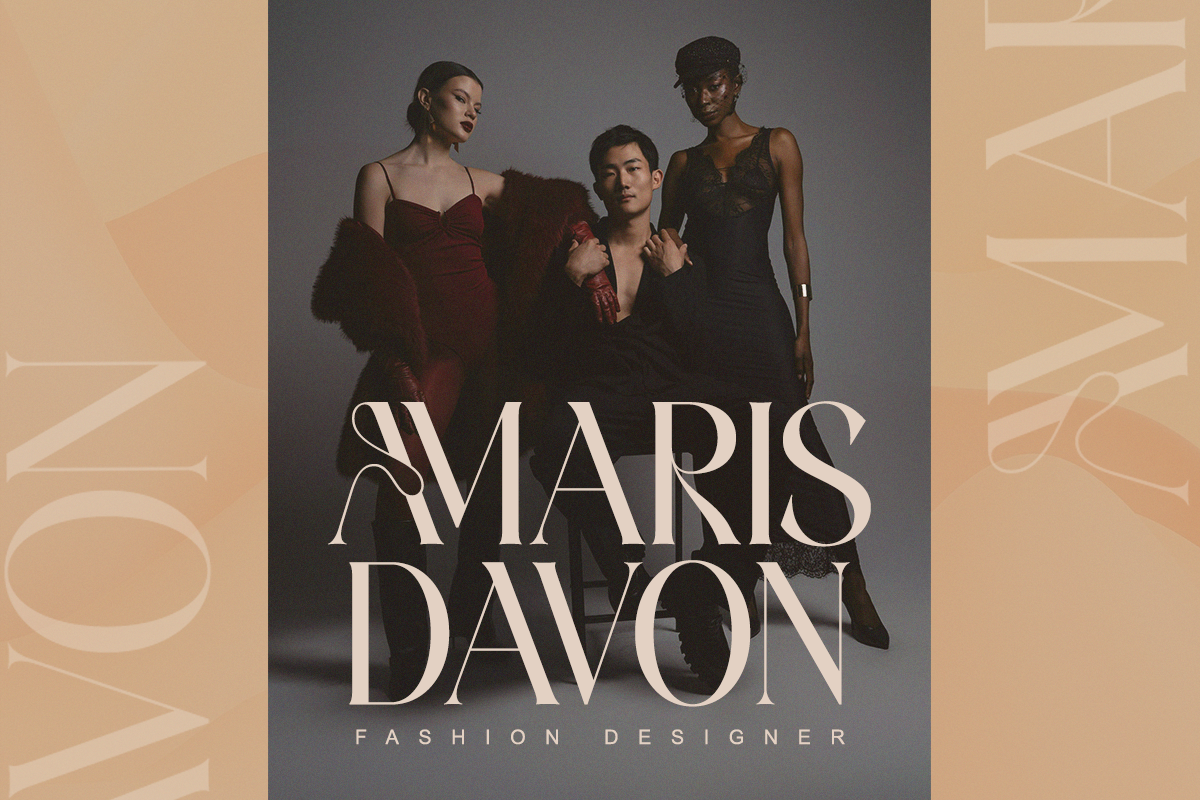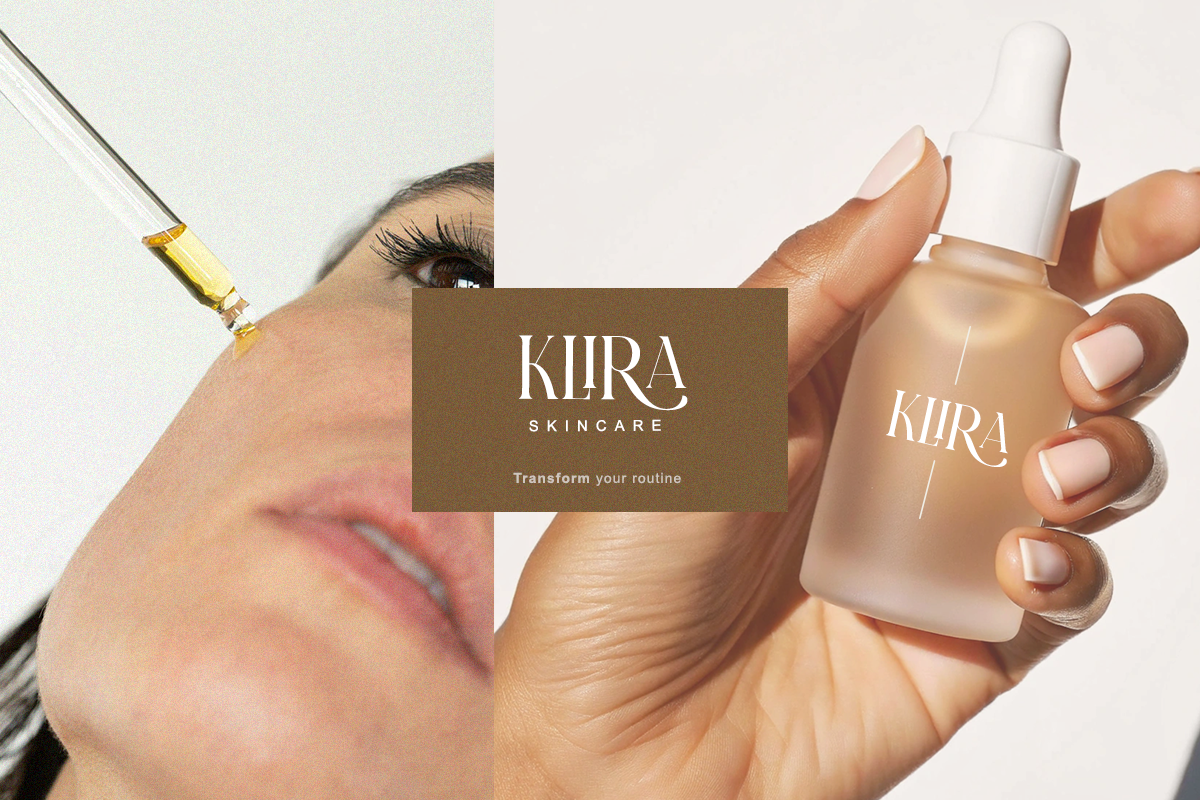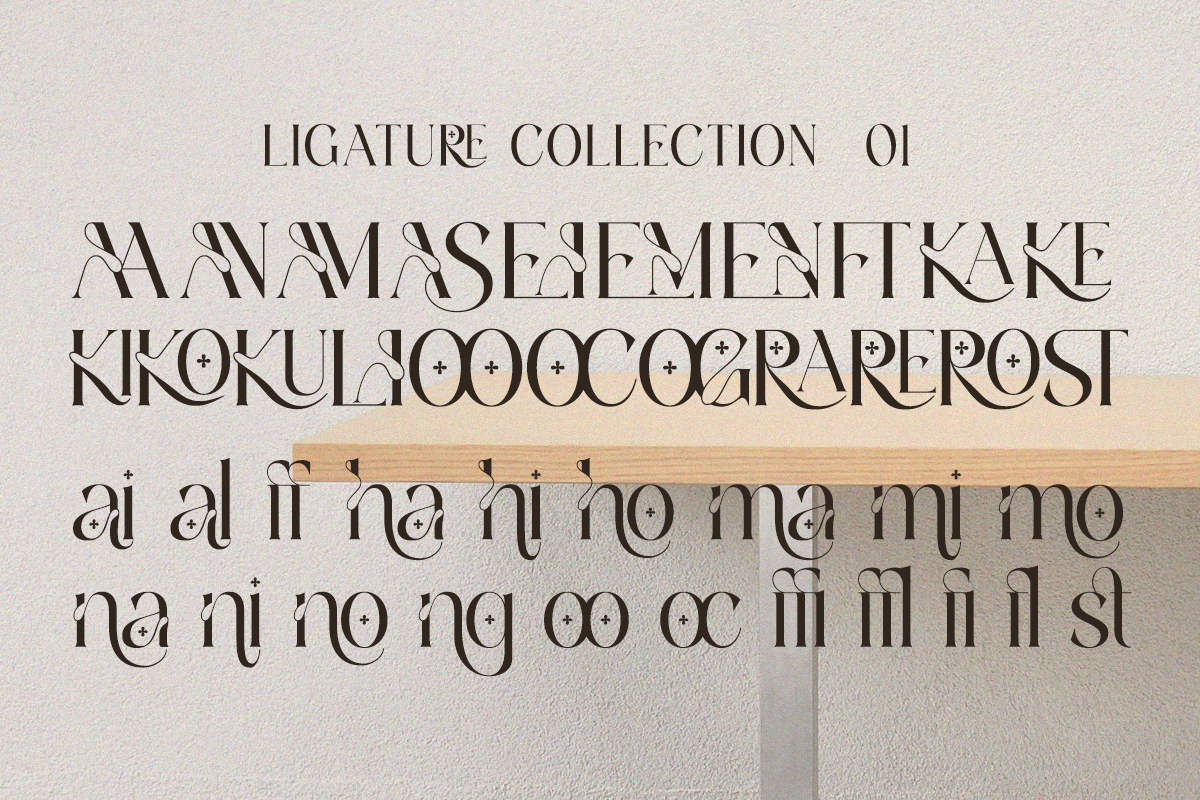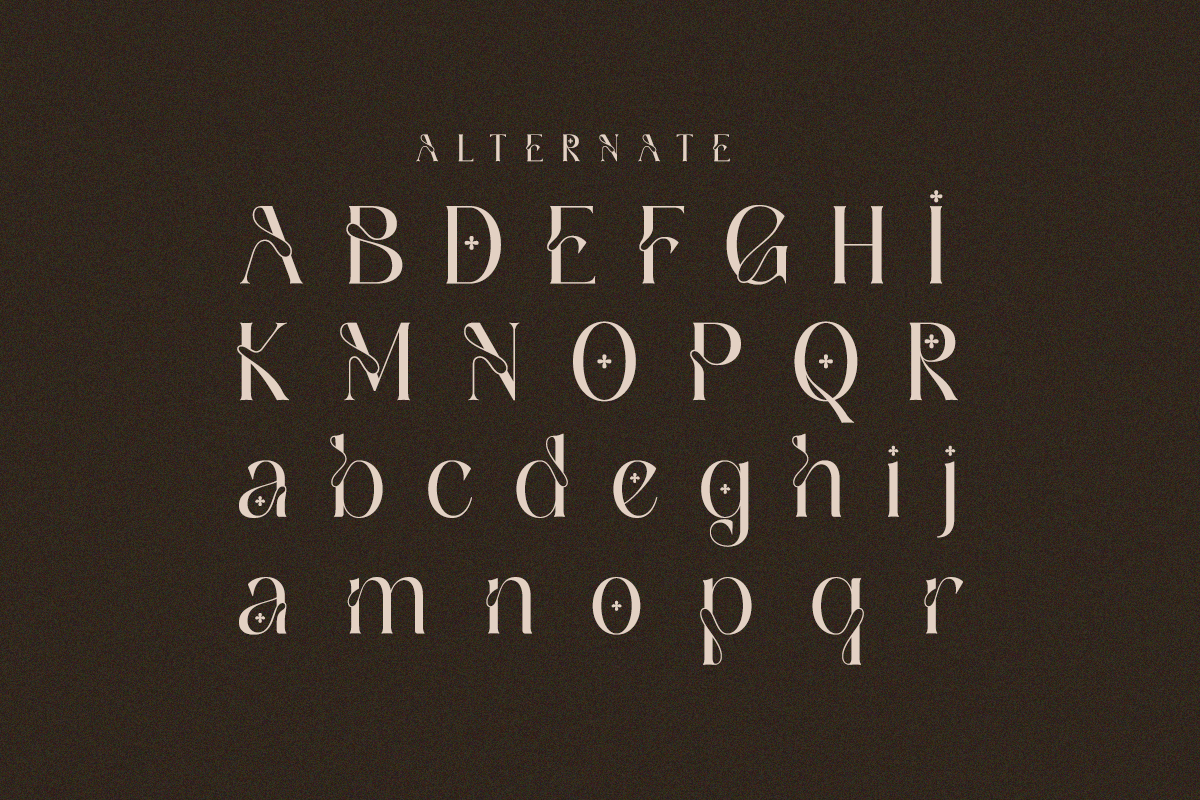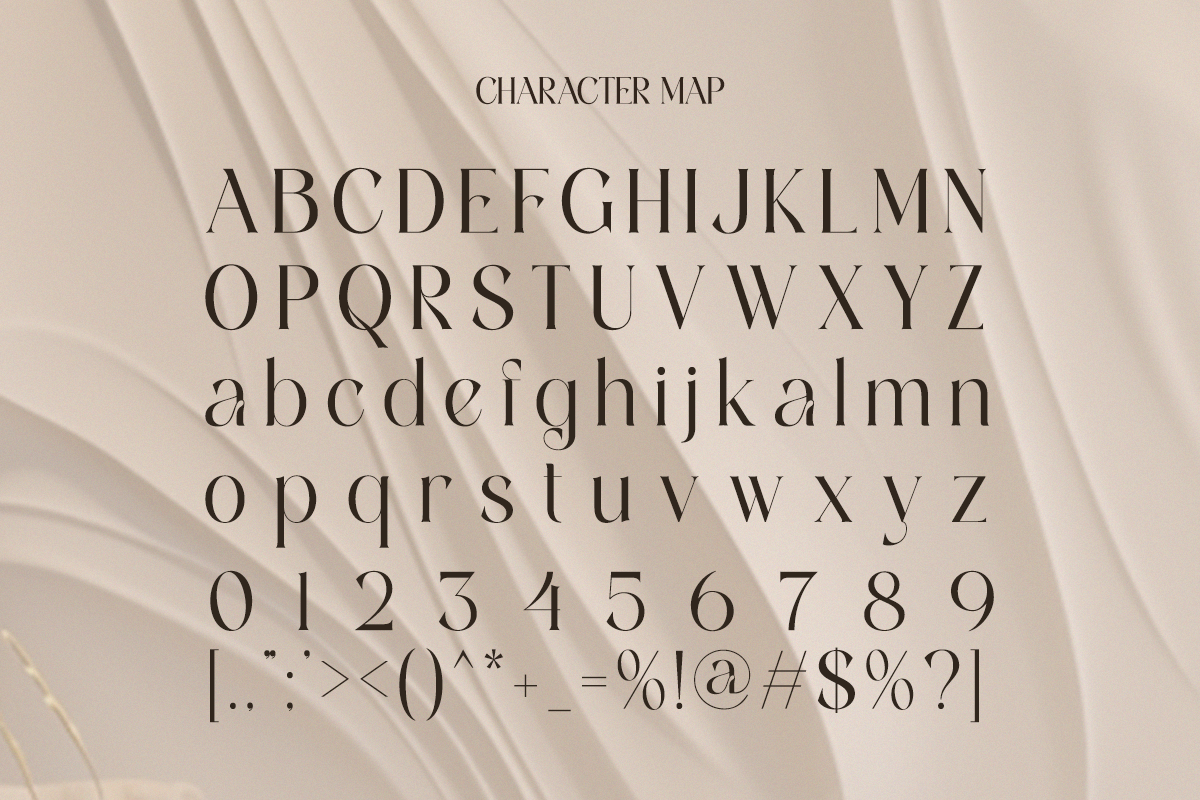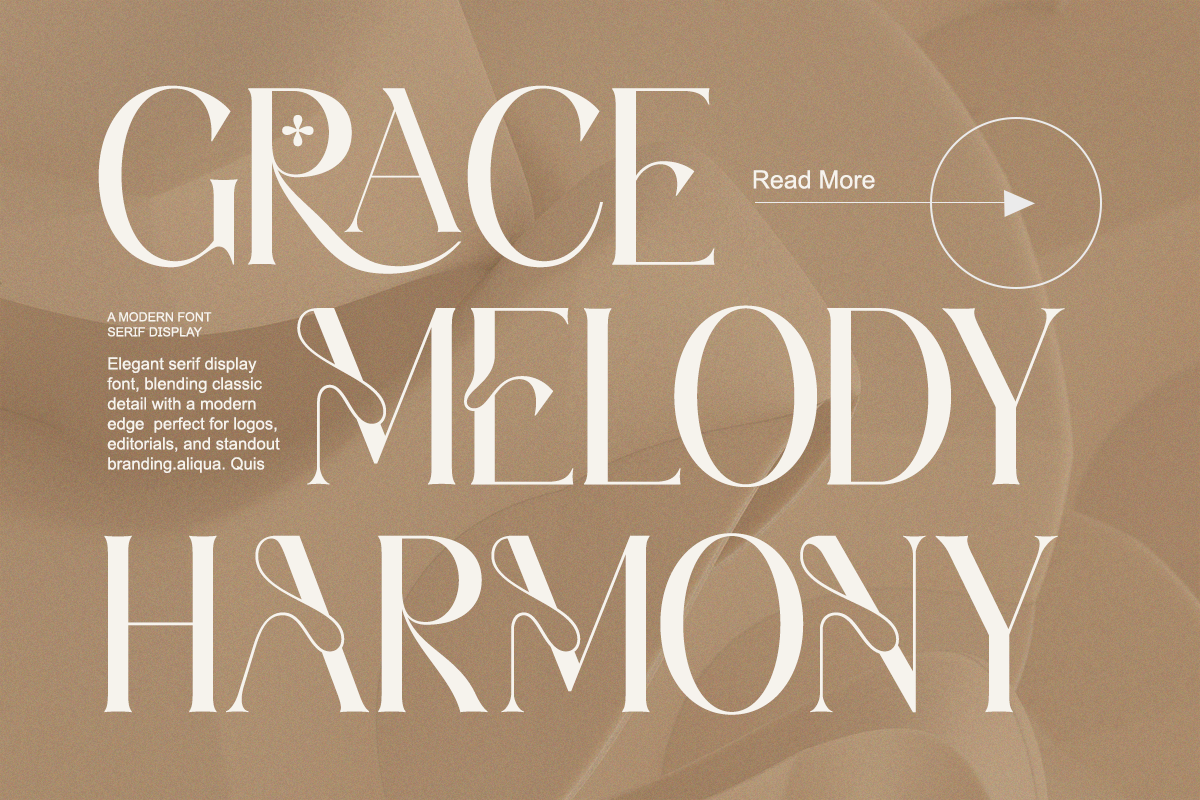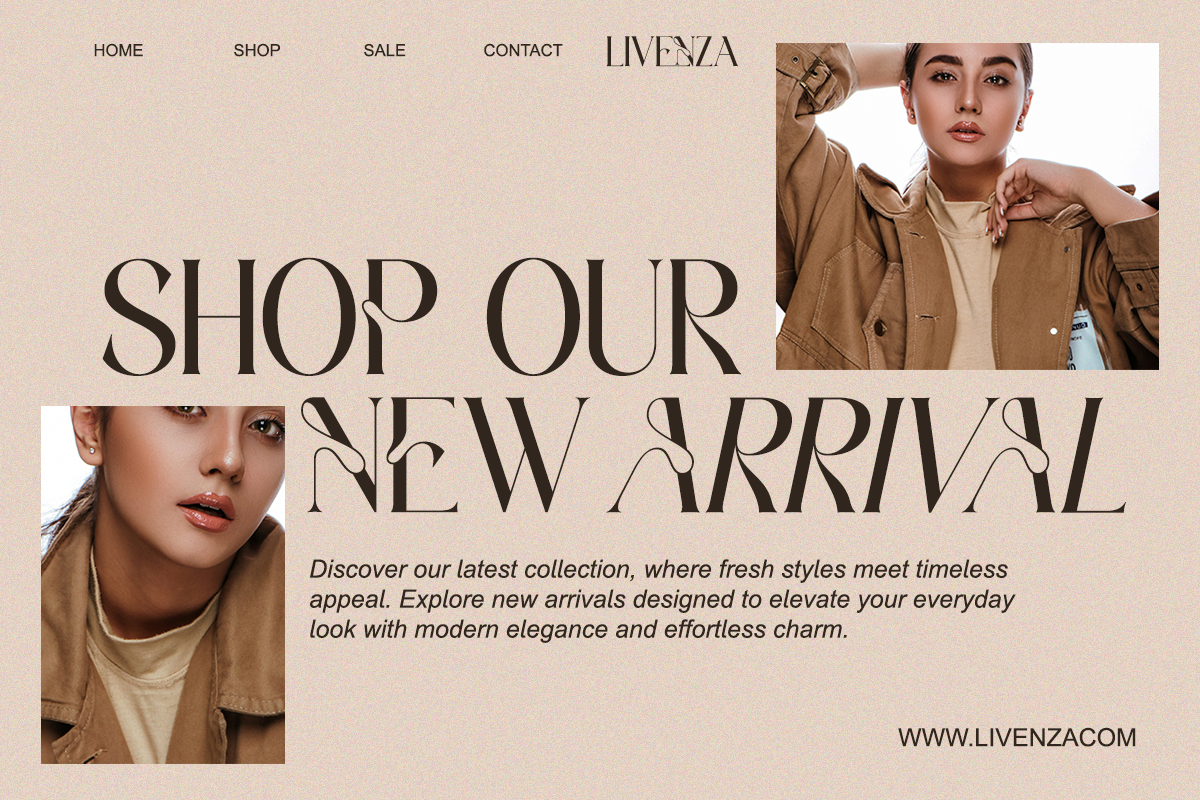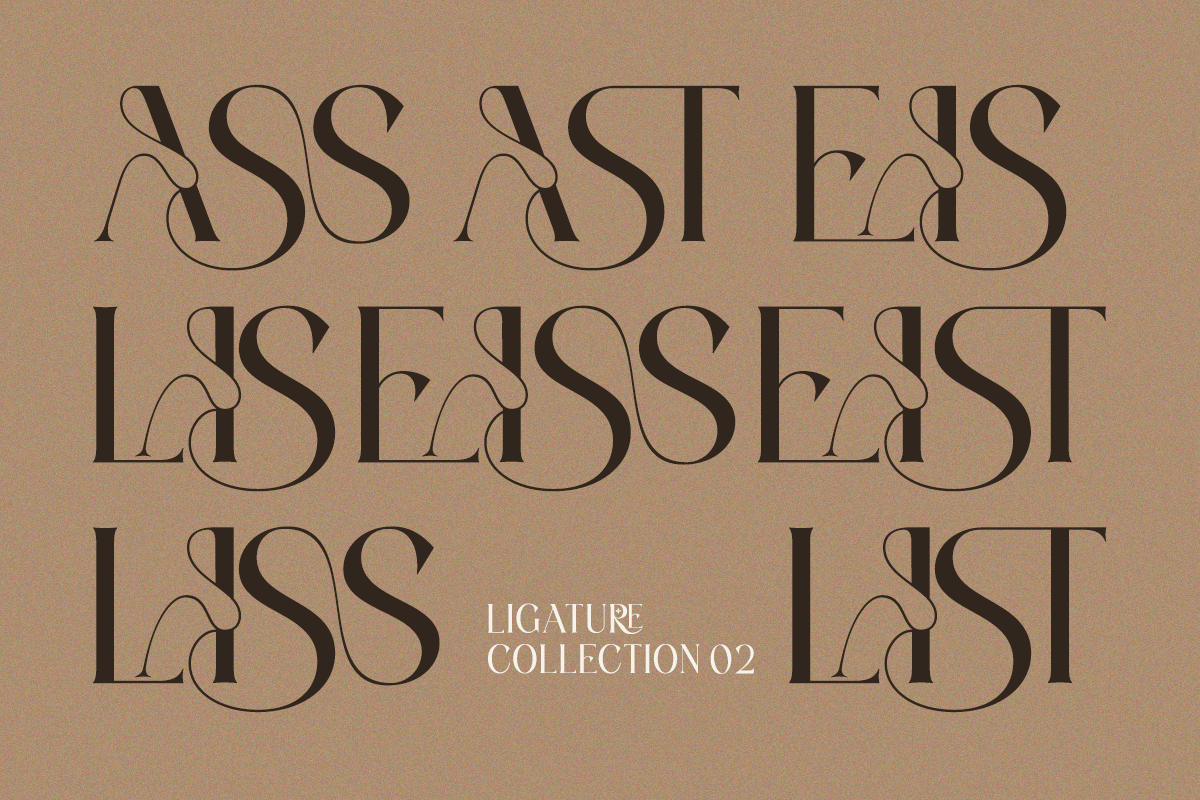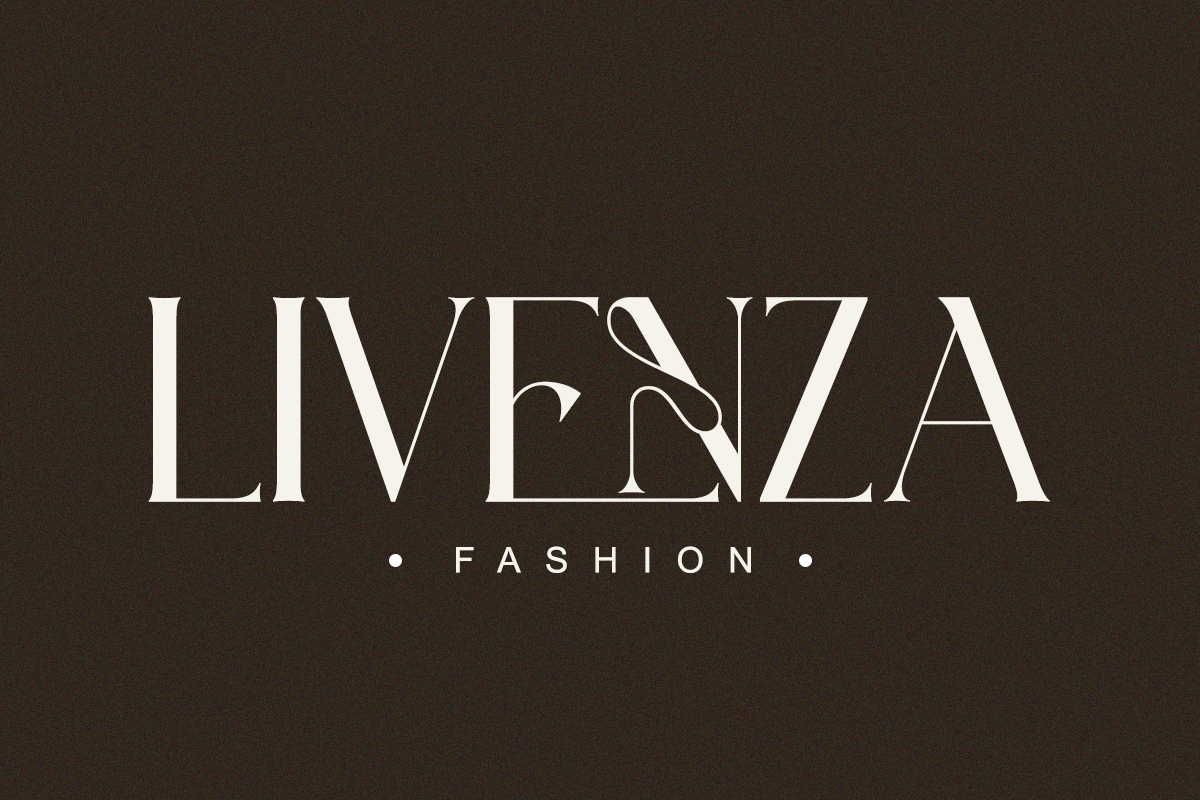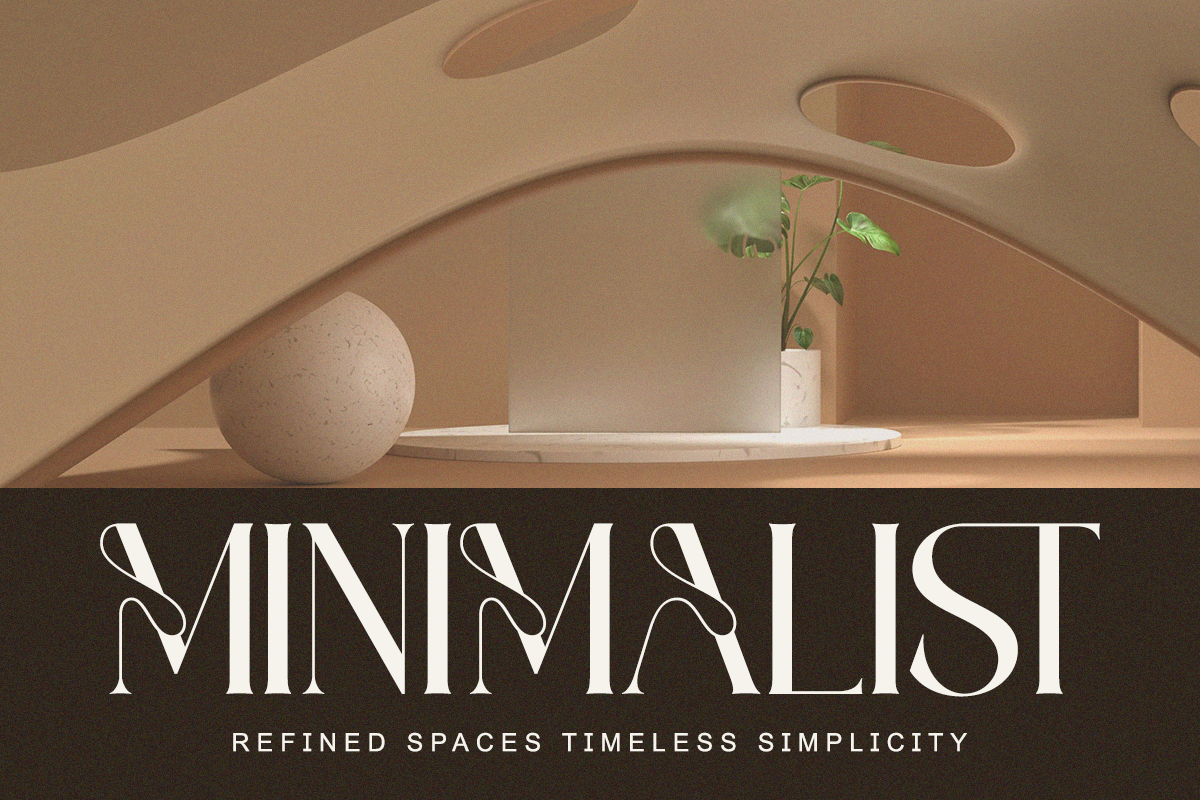
Blastigo - A Modern Stylish Serif
Introducing Blastigo, a stylish modern serif created for designers who love expressive typography. The unique ligatures, smooth curves, and fine high-contrast strokes bring a refined editorial charm that feels premium and contemporary. Whether you're crafting a fashion logo, wedding brand, magazine header, or lifestyle aesthetic, Blastigo delivers a polished and artistic presence in every layout. Font Features - Regular & Italic - Uppercase & lowercase - Decorative alternates & ligatures - Modern contrast serif - PUA encoded - Multilingual support Perfect For Boutique branding, logo design, beauty & fashion identity, packaging, editorial projects, wedding stationery, and creative social media templates.